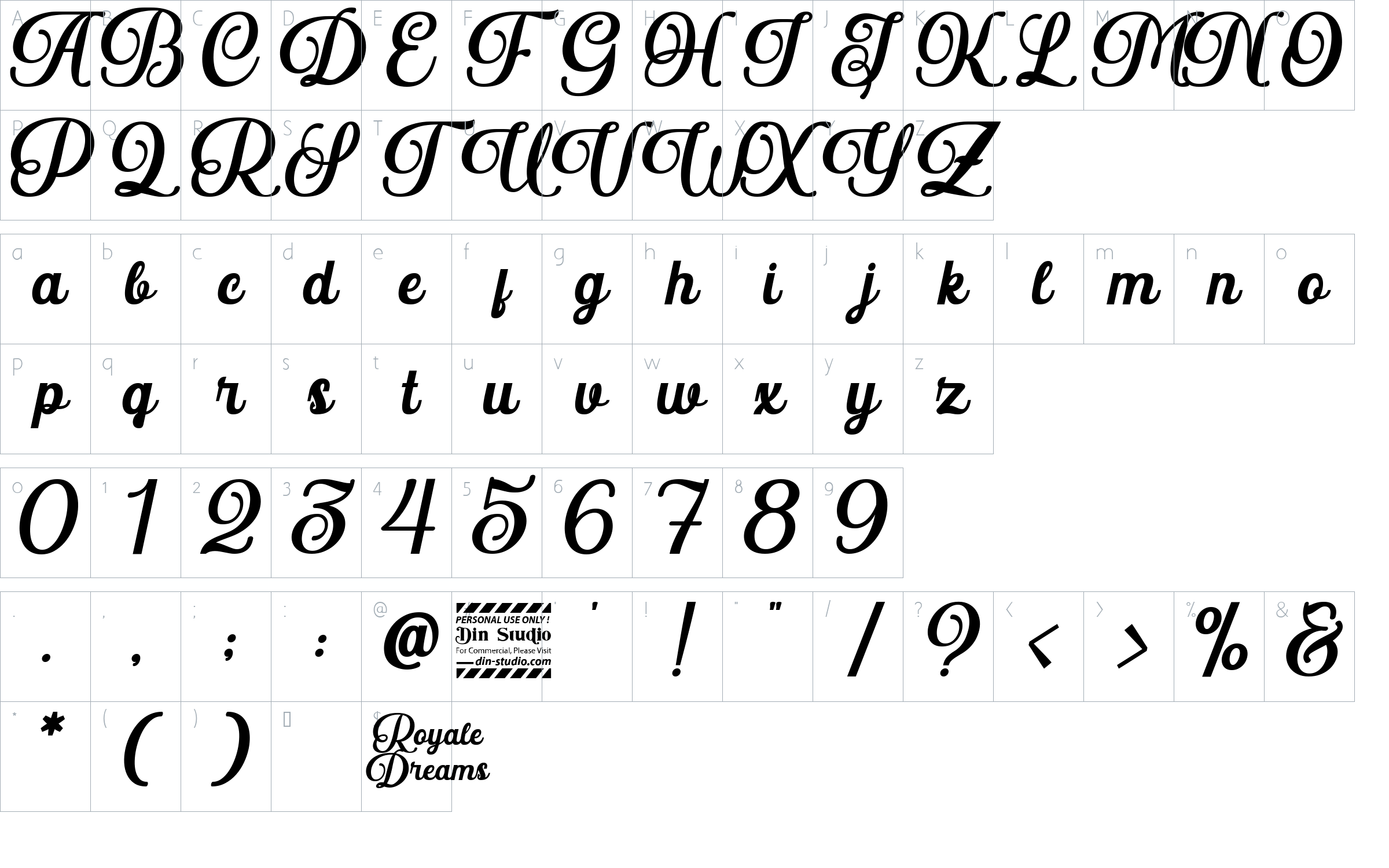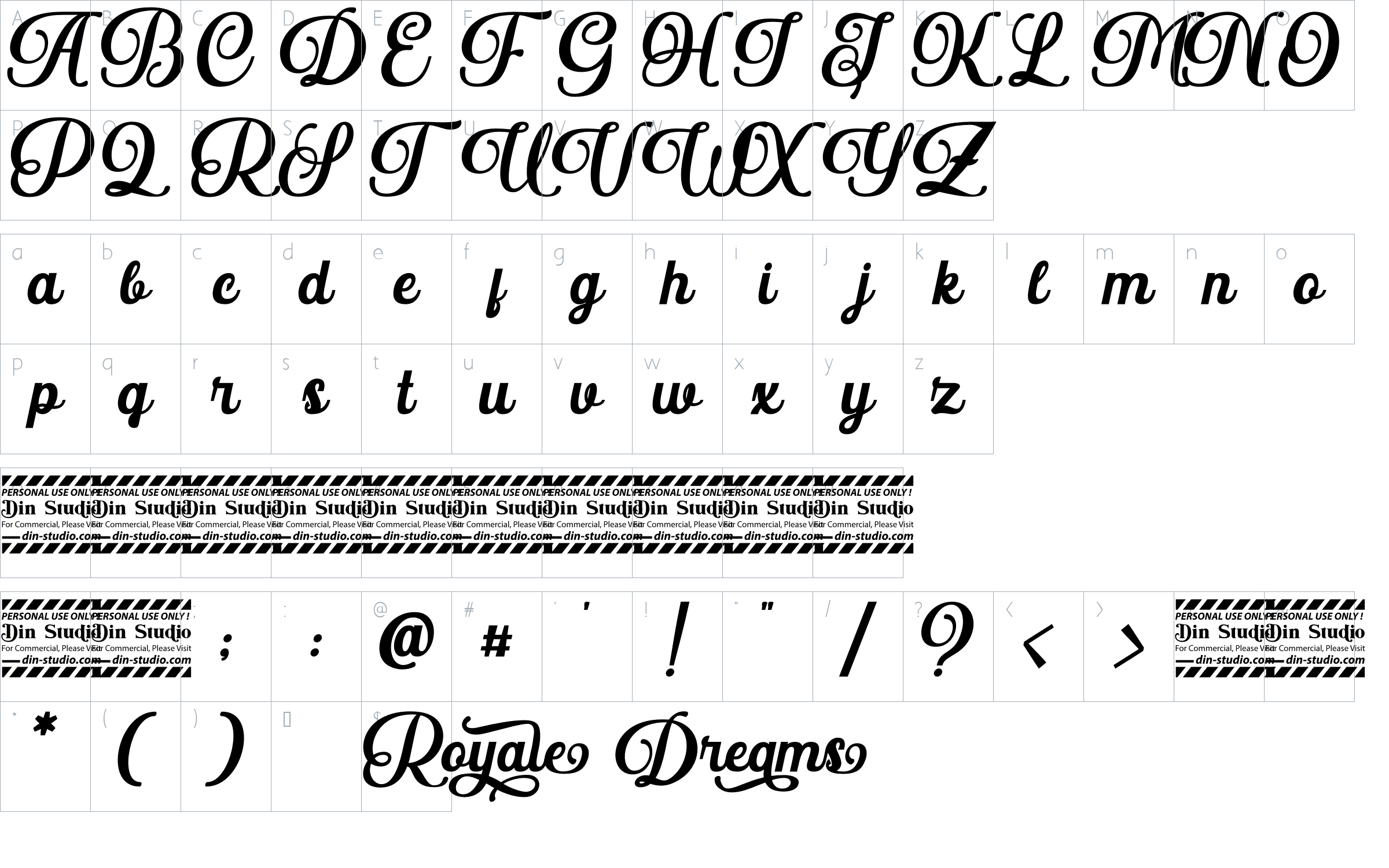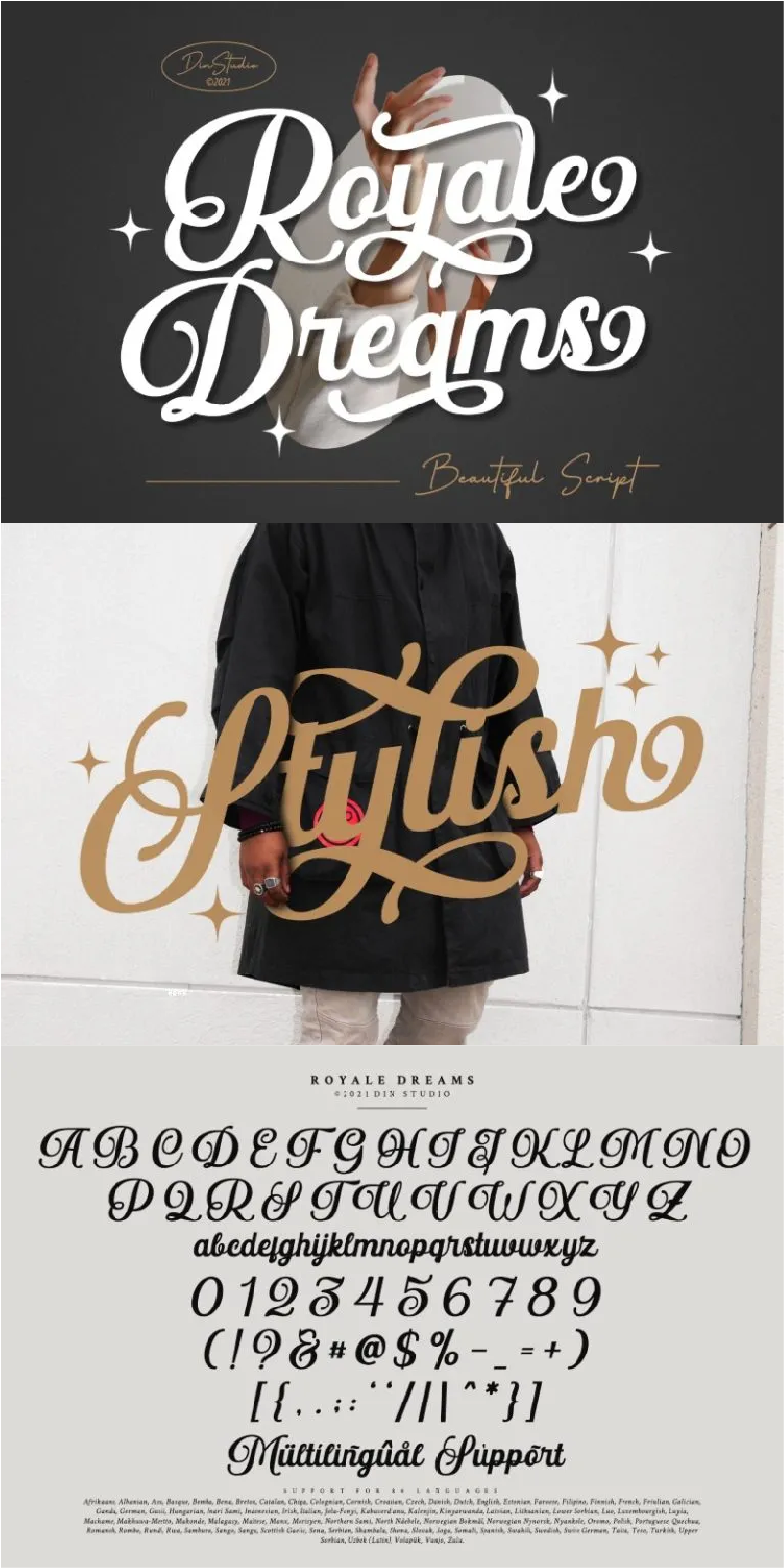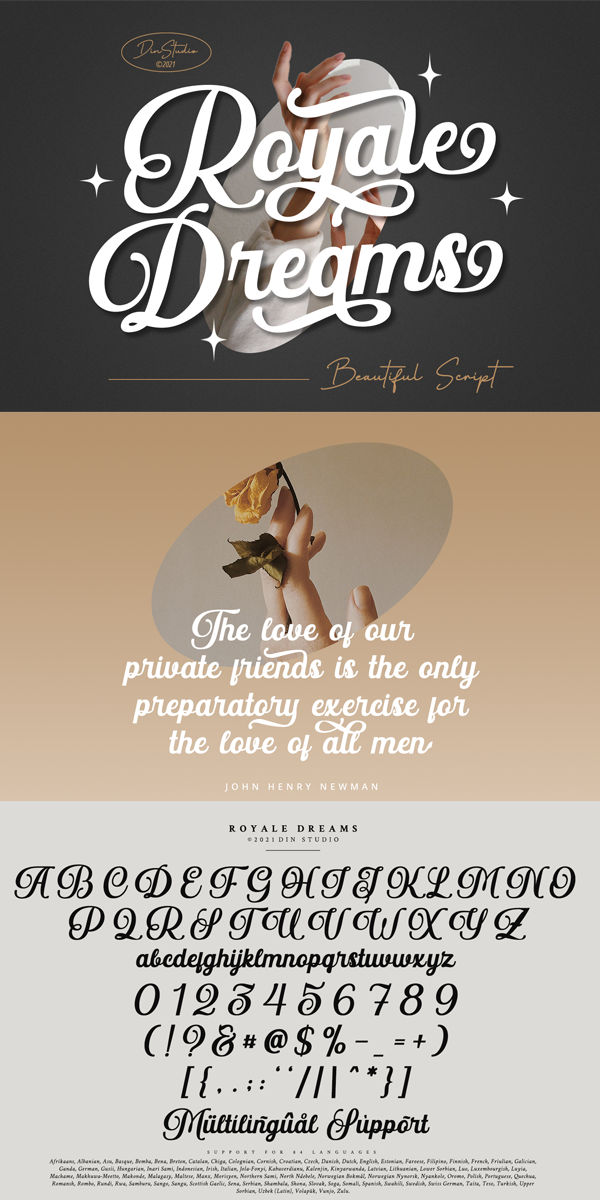
Royale Dreams Font
About Royale Dreams
Royale Dreams is an elegant script typeface. Designed primarily as a captivating handcrafted style. This typeface that is easy on the eyes font that excels at captivating headlines, or large branding text, the font oozes that cute aesthetic that just makes you go “aww!”
Our font always includes Multilingual Supports to make your branding reach a global audience. See the previews above to get some inspiration on how you can use them.
Afrikaans, Albanian, Asu, Basque, Bemba, Bena, Breton, Catalan, Chiga, Colognian, Cornish, Croatian, Czech, Danish, Dutch, English, Estonian, Faroese, Filipino, Finnish, French, Friulian, Galician, Ganda, German, Gusii, Hungarian, Inari Sami, Indonesian, Irish, Italian, Jola-Fonyi, Kabuverdianu, Kalenjin, Kinyarwanda, Latvian, Lithuanian, Lower Sorbian, Luo, Luxembourgish, Luyia, Machame, Makhuwa-Meetto, Makonde, Malagasy, Maltese, Manx, Morisyen, Northern Sami, North Ndebele, Norwegian Bokmål, Norwegian Nynorsk, Nyankole, Oromo, Polish, Portuguese, Quechua,Romansh, Rombo, Rundi, Rwa, Samburu, Sango, Sangu, Scottish Gaelic, Sena, Serbian, Shambala, Shona, Slovak, Soga, Somali, Spanish, Swahili, Swedish, Swiss German, Taita, Teso, Turkish, Upper Sorbian, Uzbek (Latin), Volapük, Vunjo, Zulu